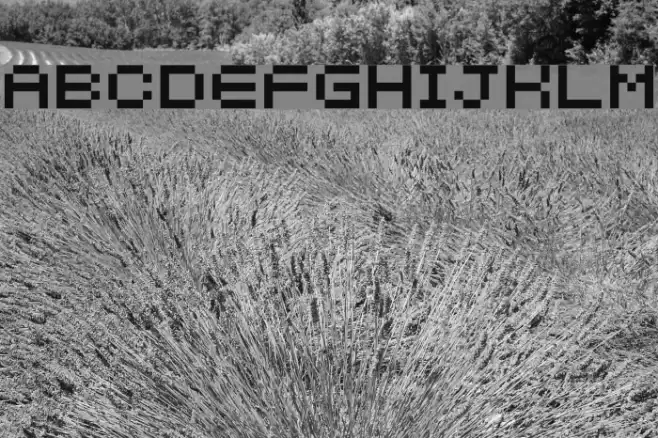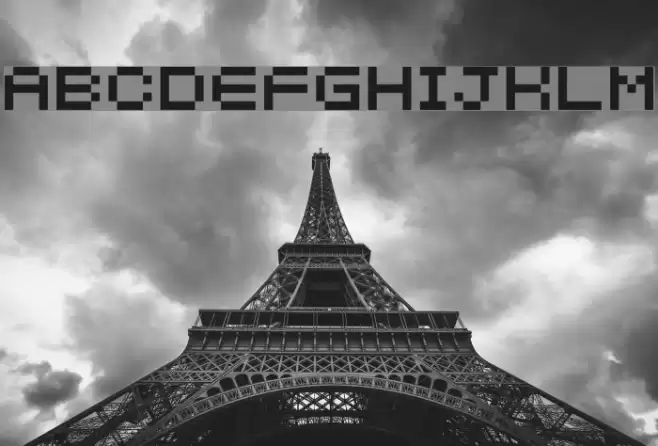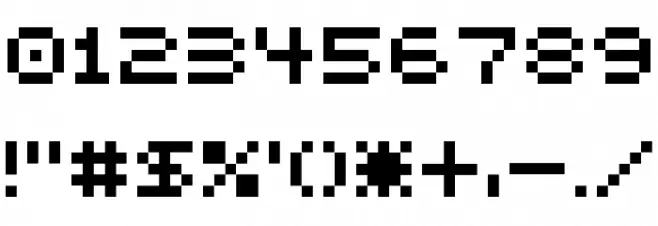
5px2bus Font
5px2bus Description
This font features a pixelated, blocky style reminiscent of early digital displays and video games. Each character is constructed with a uniform grid-like pattern, giving it a distinctly retro and digital aesthetic. The uppercase and lowercase letters maintain a consistent height, while the numbers and special characters follow the same pixelated design. The font's simplicity and geometric form make it highly legible, even at smaller sizes. Its nostalgic appeal is perfect for projects that aim to evoke a sense of vintage computing or classic arcade games.
A pixelated, retro-style font with a blocky, digital appearance from Uncategorized fonts.
- Proposed Projects: Ideal for retro video game graphics, digital art projects, tech-themed posters, and any design requiring a vintage digital aesthetic.
- Overall Style: Vintage
- Use Case: Headlines, Logos, Digital Art